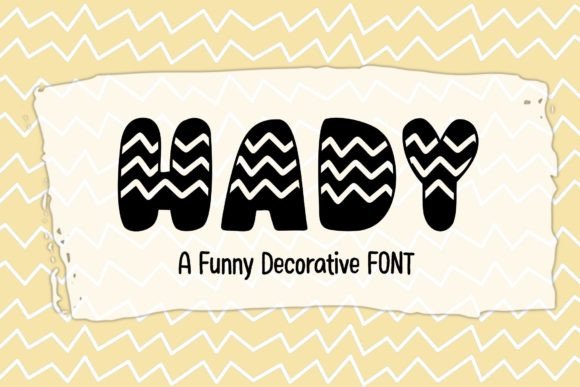
Introducing Hady Font, the ultimate decorative font that will inject a playful and humorous touch to your creative projects! This font is not just a collection of letters; it's a burst of laughter waiting to be unleashed.
With Hady Font, you can turn ordinary designs into extraordinary masterpieces. Its charming, whimsical style instantly captivates, bringing a smile to the face of anyone who lays eyes on it. Whether you're creating logos, branding, social media graphics, or quirky DIY projects, Hady Font is the perfect companion.
Imagine the joy of your customers when they receive a business card or flyer adorned with the playful characters of Hady Font. Its unique personality shines through, leaving a lasting impression that sets you apart from the competition. Your social media presence will come alive, as posts and images pop with the vibrancy and charm of Hady Font.
But Hady Font's magic doesn't end there. It's the perfect font to add a touch of hilarity to your mugs, t-shirts, and other merchandise. Your customers will chuckle with delight as they sip their coffee from a mug proudly displaying a witty quote in Hady Font.
So, why settle for ordinary fonts when you can unleash the laughter and creativity of Hady Font? Its playful, decorative style is sure to captivate your audience, leaving them with a smile and a desire for more. Download Hady Font today and transform your designs into hilarious works of art!